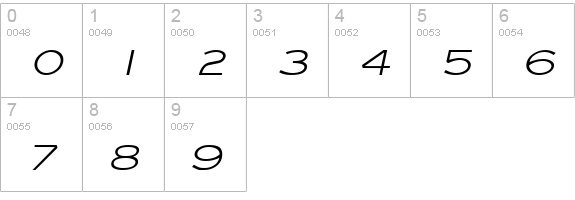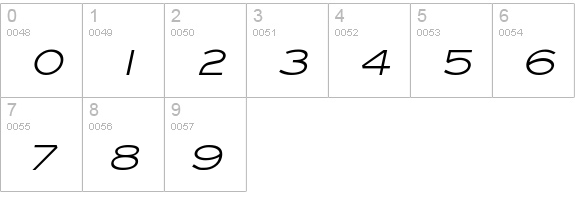
Eye glass Italic Font Details
Eye glass Italic is a distinctive, italic variant in the Eye typeface family \xE2\x80\x94 well suited to design and typography projects.
Eye glass Italic font is a sleek and modern typeface that exudes sophistication and elegance. Its slanted and italicized design adds a touch of flair to any text, making it perfect for adding a stylish touch to your projects. The clean lines and subtle curves of Eye glass Italic make it a versatile font that can be used for a wide range of design applications. Best of all, Eye glass Italic font is available for free download at FontsMarket.com. Whether you're working on a professional project or simply looking to add a touch of class to your personal creations, Eye glass Italic font is the perfect choice. Download it today and elevate your designs with this stunning and eye-catching typeface.